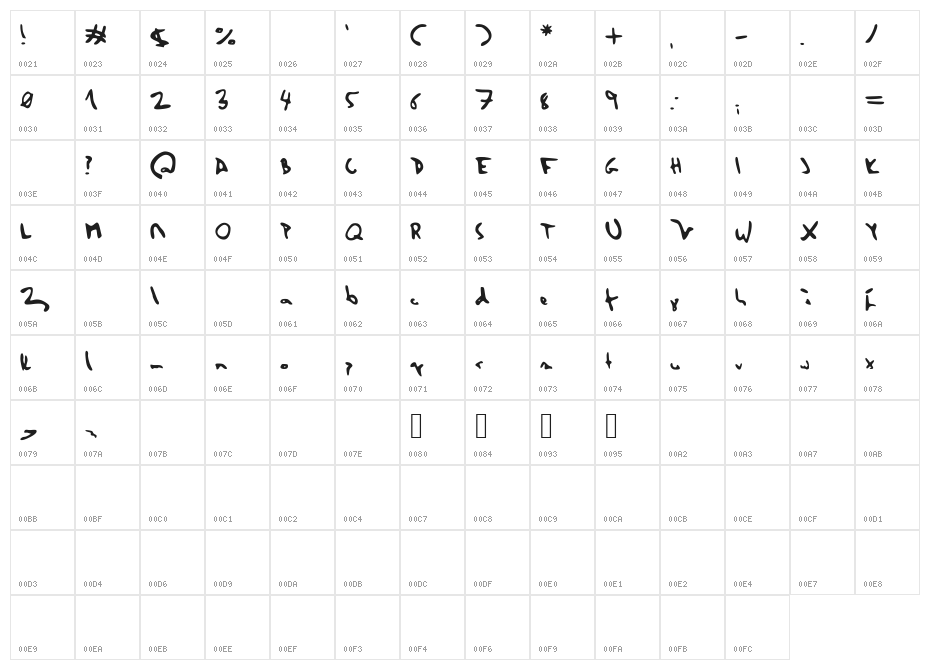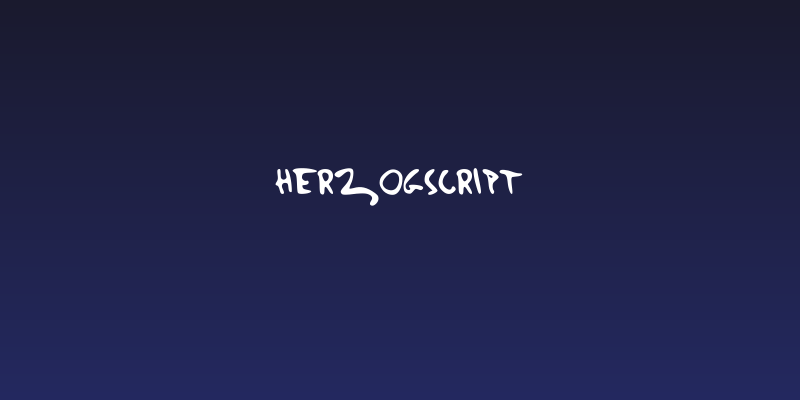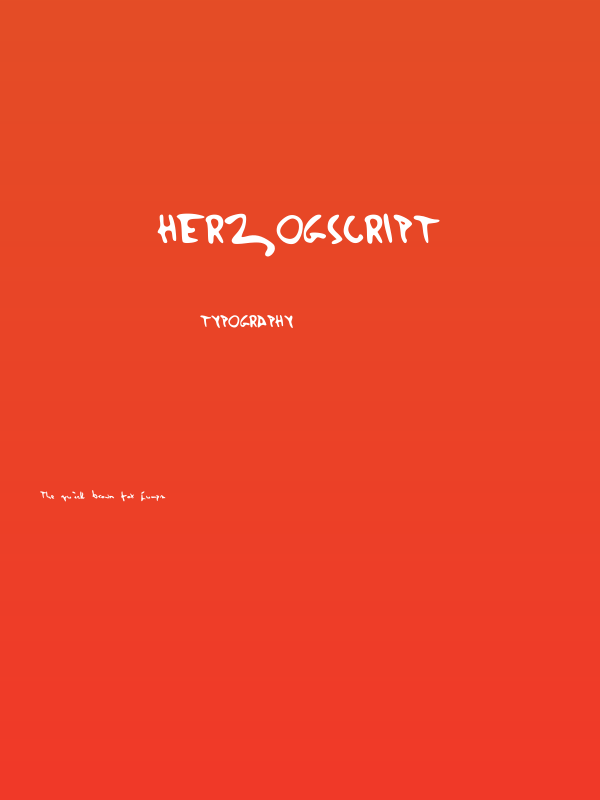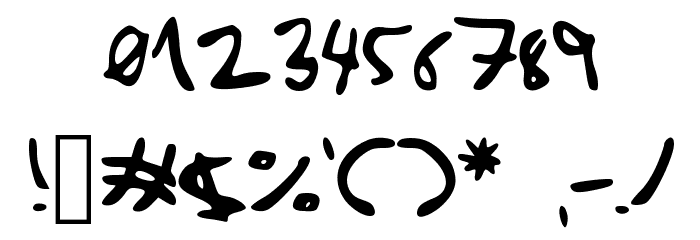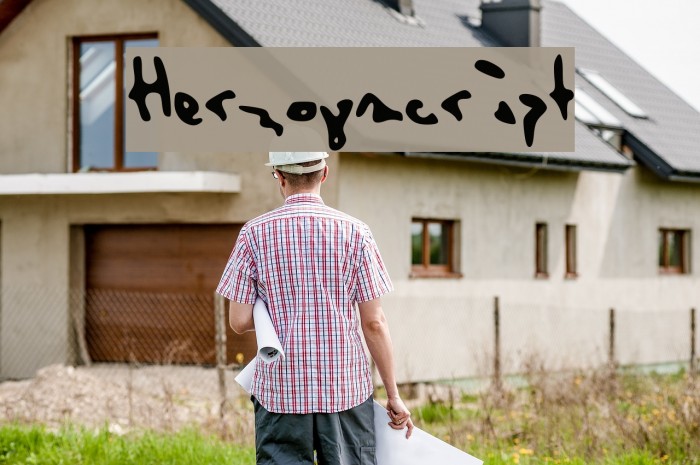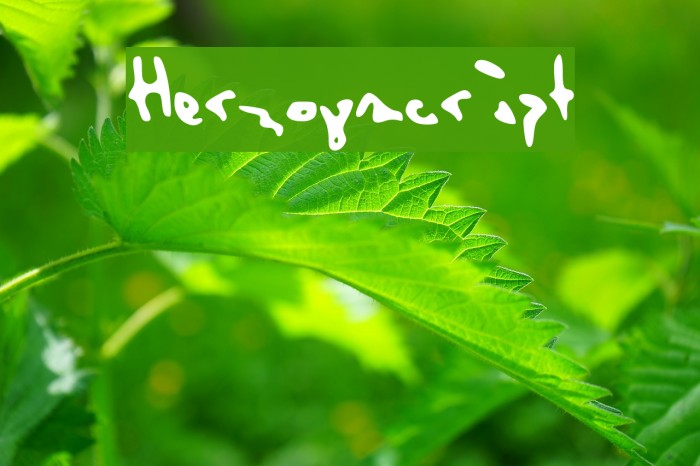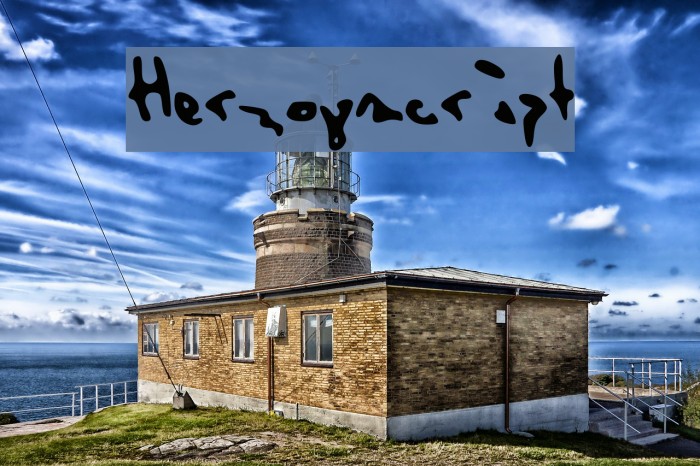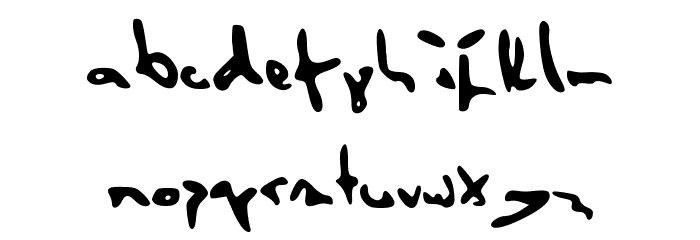
Herzogscript Font
Herzogscript Description
This font exudes a playful and artistic flair, characterized by its fluid, hand-drawn appearance. The letters are bold and slightly irregular, giving them a dynamic and lively feel. The uppercase and lowercase letters maintain a consistent style, with rounded edges and varying stroke thickness that adds to the font's whimsical nature. The numbers and special characters follow the same design principles, ensuring a cohesive look across all elements. This font is perfect for projects that require a personal touch, such as invitations, greeting cards, or creative branding materials.